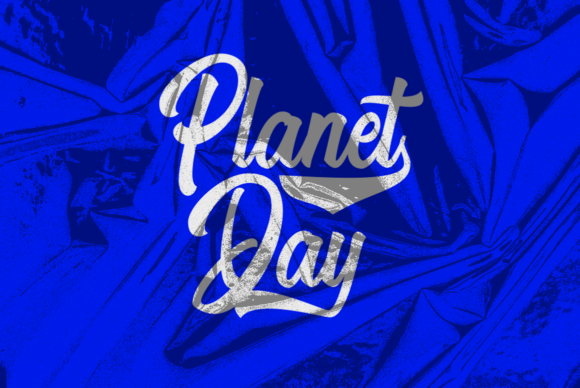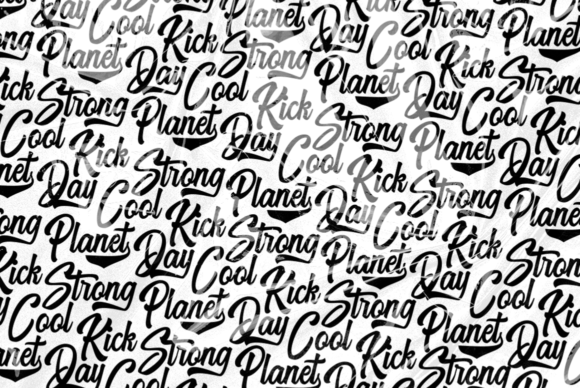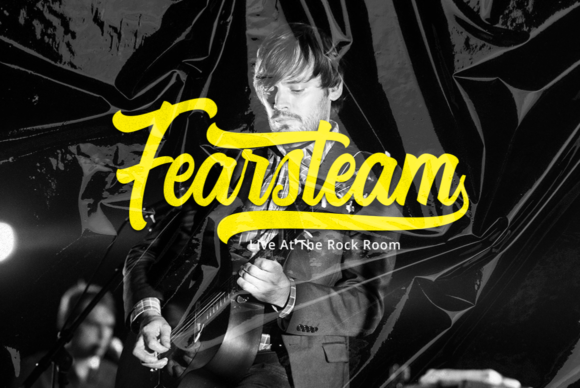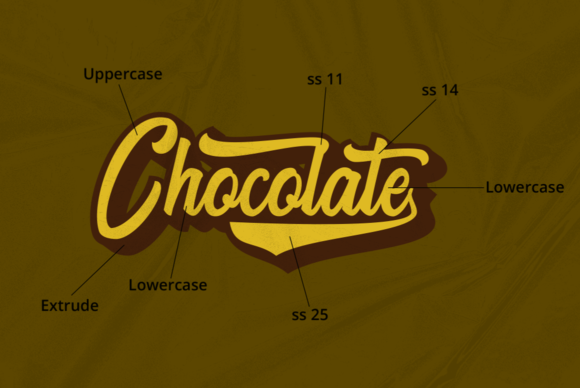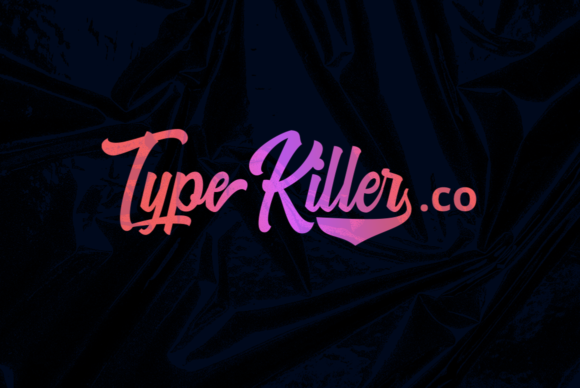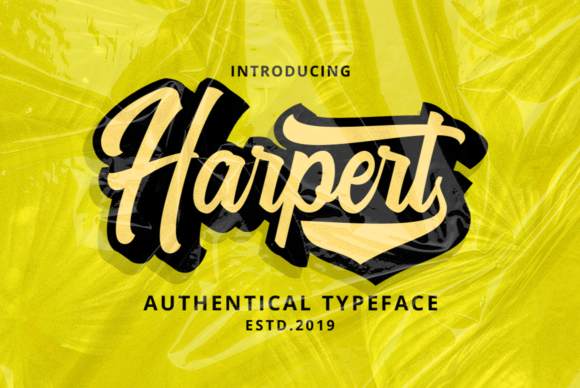
Discover the Charm of Harpert Font: A Retro-Inspired Typeface with a Personal Touch
In the world of typography, fonts play a crucial role in conveying the tone and personality of a design project. For designers and crafters looking for a typeface that exudes a unique retro feel and vintage aesthetics, Harpert Font is an excellent choice. Inspired by the charm of bygone eras, Harpert Font brings a personal touch to every single curve, making it an ideal selection for a wide variety of design projects.
The Story Behind Harpert Font
Harpert Font is a carefully crafted typeface that draws inspiration from vintage designs, yet boasts a distinct personality that sets it apart from other retro-style fonts. Its creator aimed to evoke a sense of nostalgia and playfulness, while maintaining a level of sophistication and elegance. The result is a font that feels both classic and modern, making it versatile enough to be used in various design contexts.
Key Features of Harpert Font
- Unique Retro Feel: Harpert Font’s design is deeply rooted in retro aesthetics, with subtle imperfections and quirks that give it a charming, handmade feel.
- Personal Touch: Every curve and detail in Harpert Font has been meticulously crafted to convey a sense of personality and human touch.
- Vintage Inspiration: The font’s vintage inspiration is evident in its classic lines, elegant proportions, and refined details.
- High Versatility: Harpert Font’s unique blend of retro and modern elements makes it suitable for a wide range of design projects, from branding and advertising to packaging and digital media.
Design Applications for Harpert Font
Harpert Font’s versatility and distinctive character make it an excellent choice for various design applications, including:
- Branding and Logo Design: Use Harpert Font to create memorable logos and brand identities that stand out with a unique, retro flair.
- Advertising and Marketing Materials: Add a touch of nostalgia and personality to your ads, flyers, and brochures with Harpert Font.
- Packaging Design: Give your product packaging a distinctive look with Harpert Font, perfect for food labels, product tags, and more.
- Digital Media: Incorporate Harpert Font into your digital projects, such as website designs, social media graphics, and video titles, to add a personal touch.
Tips for Using Harpert Font Effectively
To make the most of Harpert Font, consider the following tips:
- Experiment with Sizes and Colors: Harpert Font’s versatility shines when used in different sizes and colors. Don’t be afraid to experiment and find the perfect combination for your design.
- Mix and Match with Other Fonts: Combine Harpert Font with complementary fonts to create visual interest and add depth to your design.
- Pay Attention to Kerning and Spacing: Ensure that your text is easy to read by adjusting kerning and spacing according to the specific design requirements.
Harpert Font is a unique and captivating typeface that brings a personal touch to every design project. Its blend of vintage aesthetics and retro feel makes it an excellent choice for designers and crafters looking to add a touch of personality to their work. With its versatility, charm, and distinctive character, Harpert Font is sure to inspire a wide range of creative projects.
Whether you’re designing a brand identity, creating advertising materials, or crafting digital content, Harpert Font is an excellent addition to your typographic arsenal. So why not give it a try and discover the charm of Harpert Font for yourself?